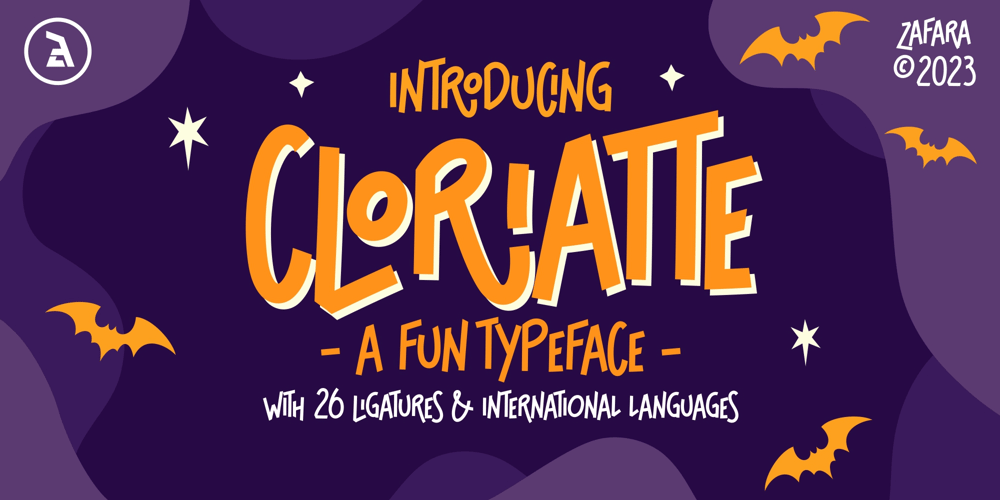
Cloriatte
Cloriatte font
Cloriatte Font Family was designed by Zohan Nur Muchlis and published by Zafara Studios. Cloriatte contains 2 styles and family package options. Cloriatte is a font with a friendly and bold look. Fonts can be used for mysterious themes such as Halloween, magic tricks, etc. Can also be used for children’s books, greeting cards, logotypes, and much more. However, basically it can be used with a wider range of themes depending on your needs.The Details:- 184 Glyphs: Uppercase, Numbers, Punctuation, Language Support & Ligatures- 26 Standard Ligatures: Enabled by default to create a hand-drawn feel! (Make sure your open-type features are enabled!)- 2 Styles: Regular & Rough- Language Support: Danish, English, French, German, Irish, Italian, Portuguese, Spanish, Swedish, & Swiss German.